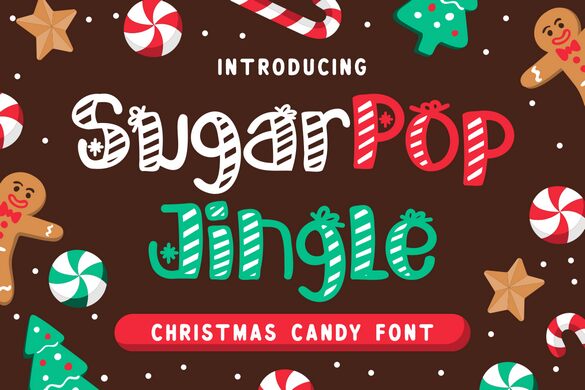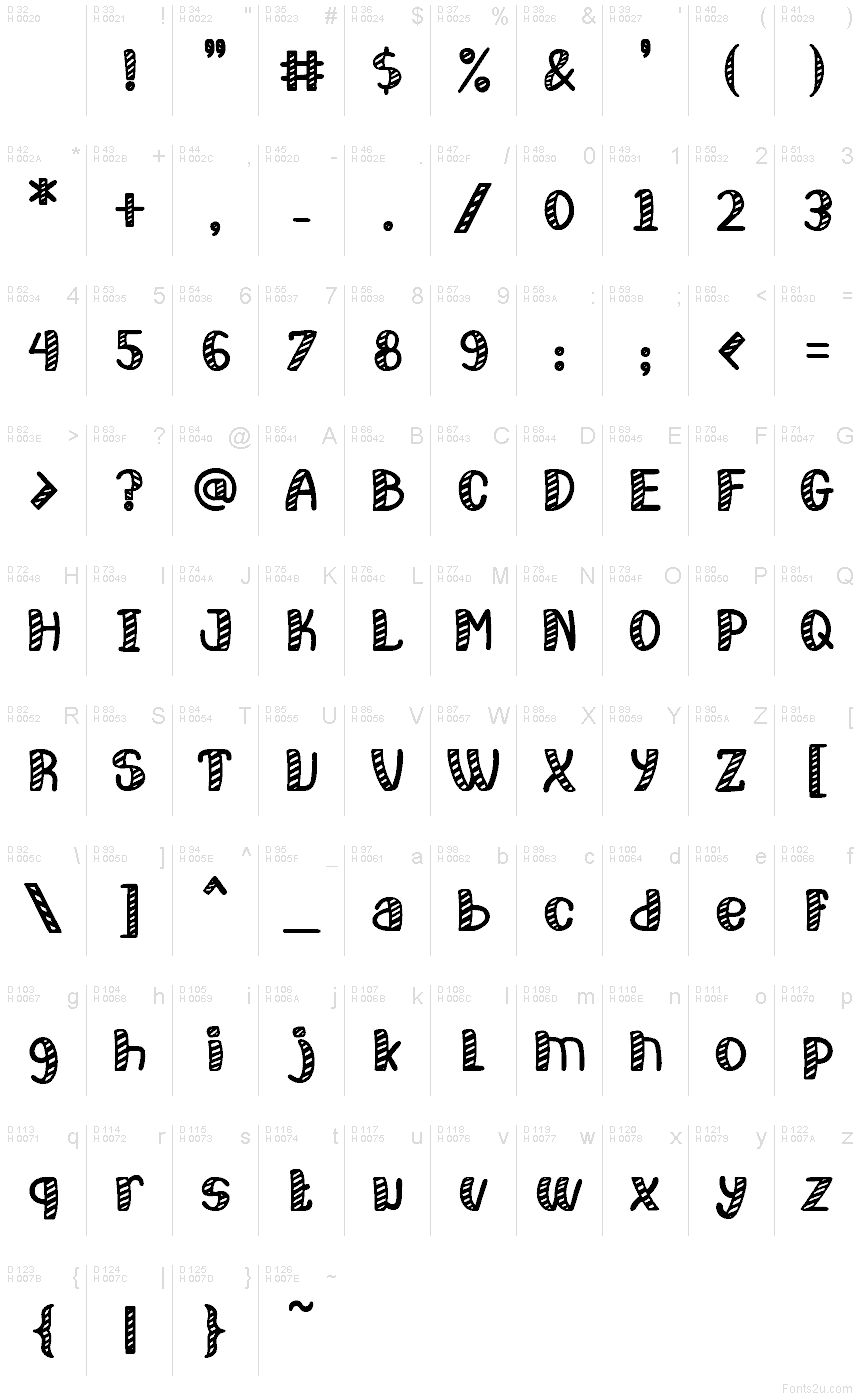
Sugarpop Jingle font by PutraCetol Studio is a free decorative Christmas typeface that looks like it’s piped from frosting and wrapped in candy-cane stripes. Rounded, bouncy letters with playful inner striping give every word a hand-lettered, storybook warmth, like signage you’d spot in a cozy holiday sweet shop. The strokes feel plump and sugary, so even at a quick glance the mood reads as festive, friendly, and fun.
Using Sugarpop Jingle, your holiday designs instantly feel more cheerful-no extra illustration needed. This free font shines on Christmas cards, party invitations, kids’ crafts, treat labels, seasonal branding, social posts, and gift tags. Set Sugarpop Jingle large for headlines, then balance it with a simple sans-serif for small details and dates so all that candy-striped character really pops.